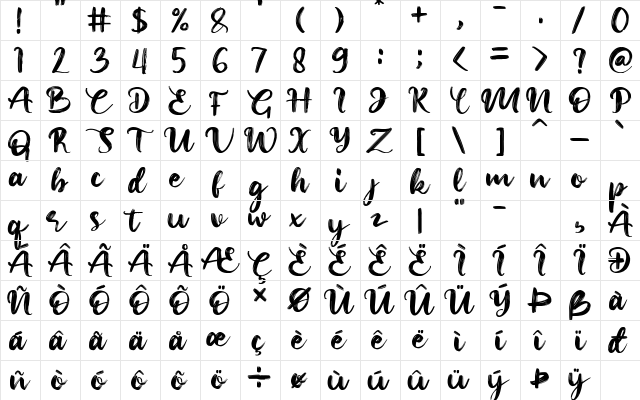
Mella Nissa Regular
| Designer | Ghazi Humam Fauzan |
Design Context for Mella Nissa Typeface
Mella Nissa is a composed and adaptable typeface that performs quietly and consistently across a wide range of design contexts.